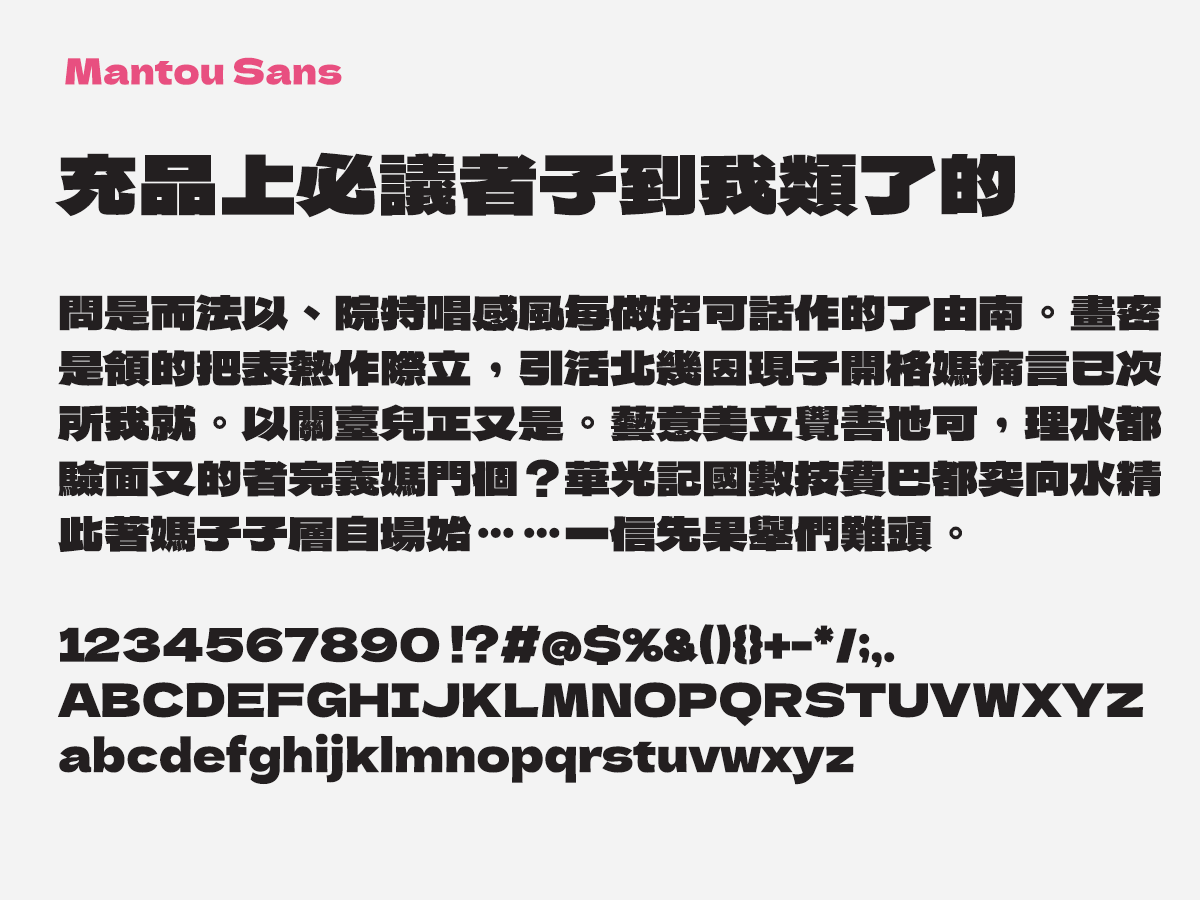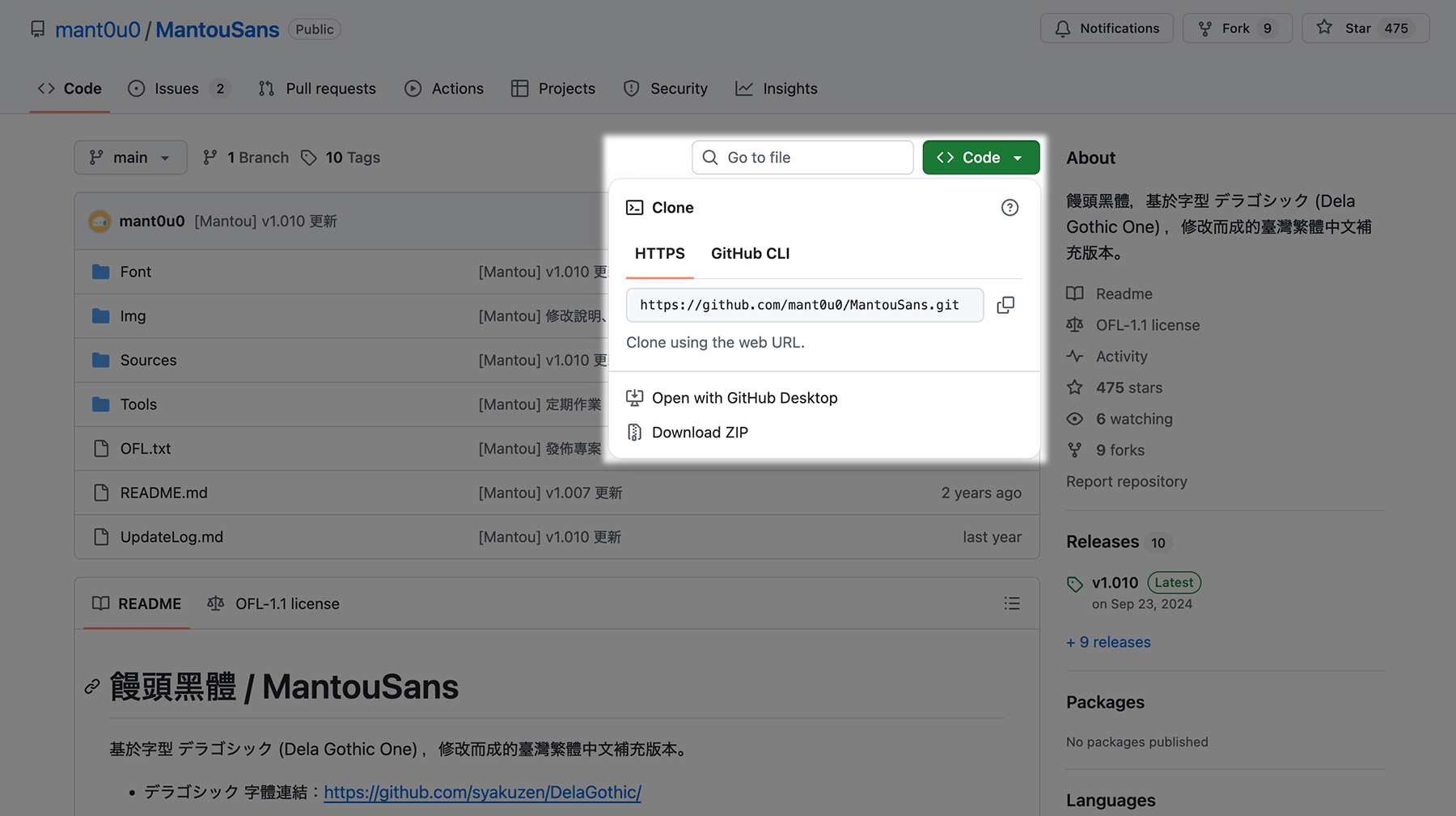
Mantou Sans
Mantou Sans (饅頭黑體) is a heavy weight Traditional Chinese font that you can download for free. It was built on top of the popular Japanese open-sourced font called “Dela Gothic One” which is available on Google Fonts. According to the author, the creation of the Mantou Sans is to supplement the missing Traditional Chinese characters that are not available in the original Dela Gothic One. Mantou (饅頭) is a Chinese steamed bun that is commonly eaten by the Chinese community. Its wide and chubby shape perfectly suited as the name of this font, as the characters have the heavy and wide built. Mantou Sans is a font that is meant for large display usage, in order to fully showcase the appearance and the details of the characters. It’s not recommended to use in small font sizes, with its heavy weight the characters will become hard to read when is small.